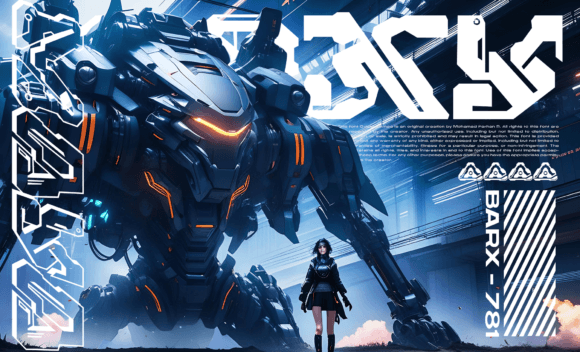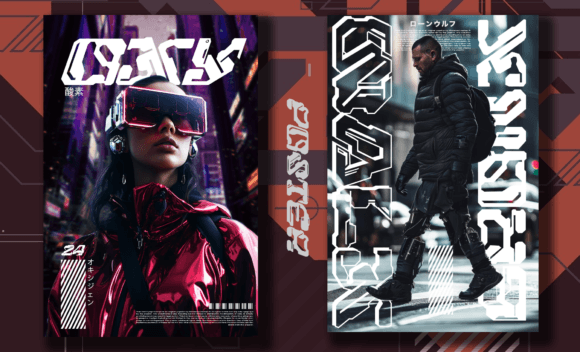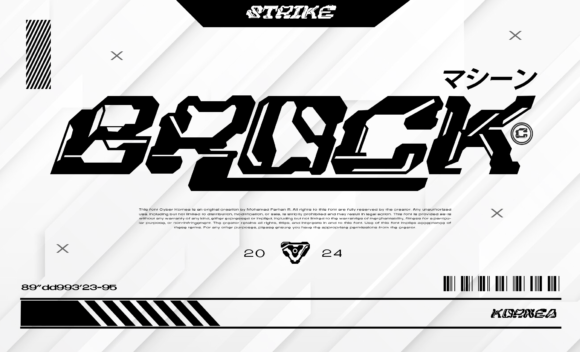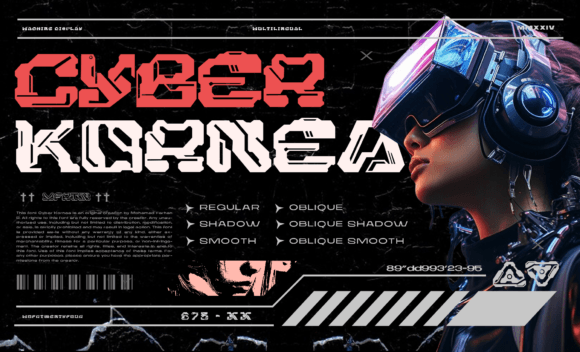
Introduction to Cyber Kornea Font
Infuse your creative projects with edge and ingenuity using the Cyber Kornea font.
As a strikingly bold techno macha display font, Cyber Kornea was crafted to command attention and exert maximum impact Boasting over 300 accessible glyphs, this multilingual typeface incorporates variations such as regular, smooth, oblique, and shadow, providing versatility for any assignment.
Key Features of Cyber Kornea Font
Why Choose Cyber Kornea Font?